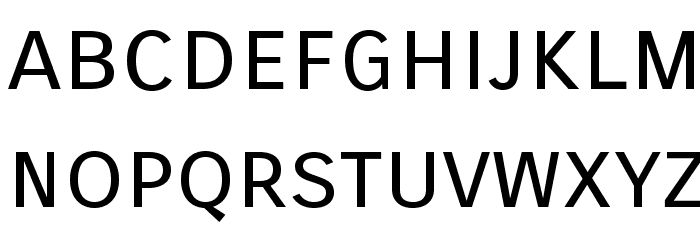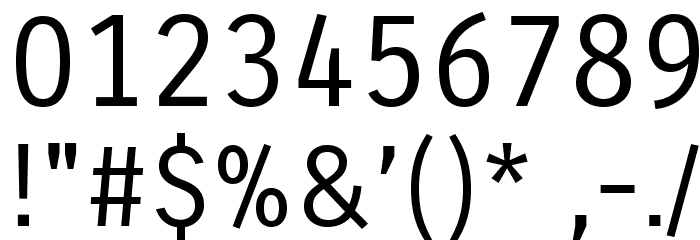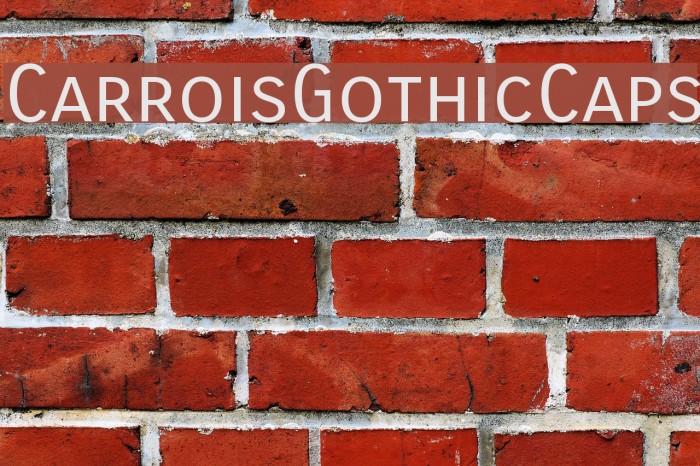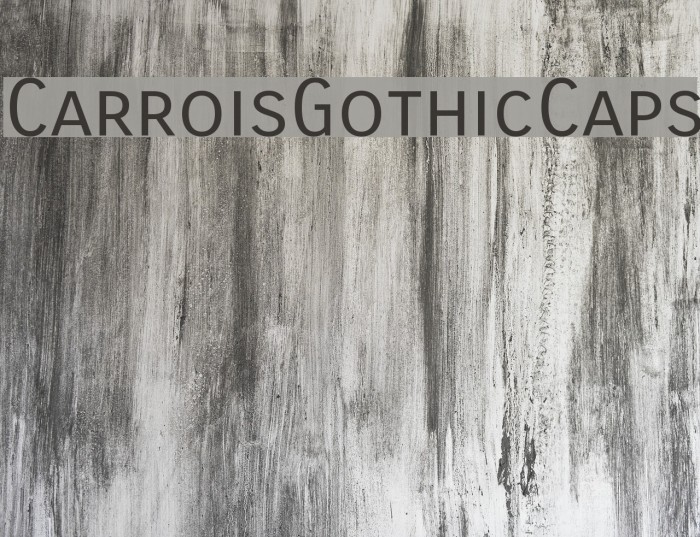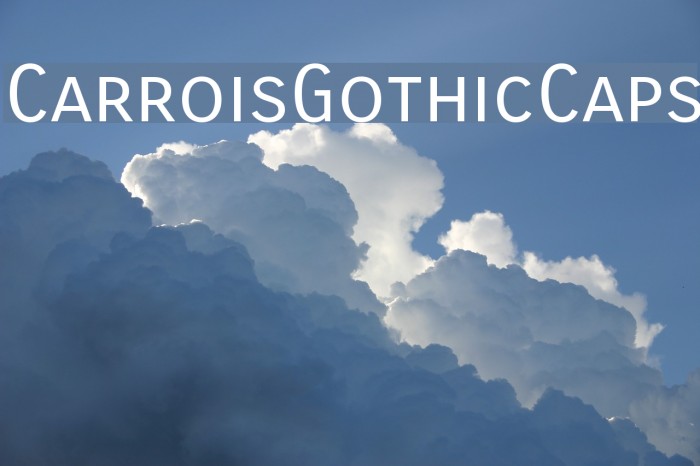
CarroisGothicCaps Font
This font features a clean and modern sans-serif design with a focus on clarity and readability. The characters are uniformly structured, with consistent stroke widths that give it a balanced appearance. The uppercase letters are bold and prominent, while the numerals and special characters maintain the same level of clarity. The font's geometric shapes and even spacing make it ideal for a variety of design applications, ensuring legibility across different media. Its simplicity and straightforwardness lend it a professional and contemporary feel.
A clean, modern sans-serif font with uniform stroke widths and geometric shapes.
- Proposed Projects: Ideal for branding, signage, digital interfaces, and editorial design due to its clarity and modern aesthetic.